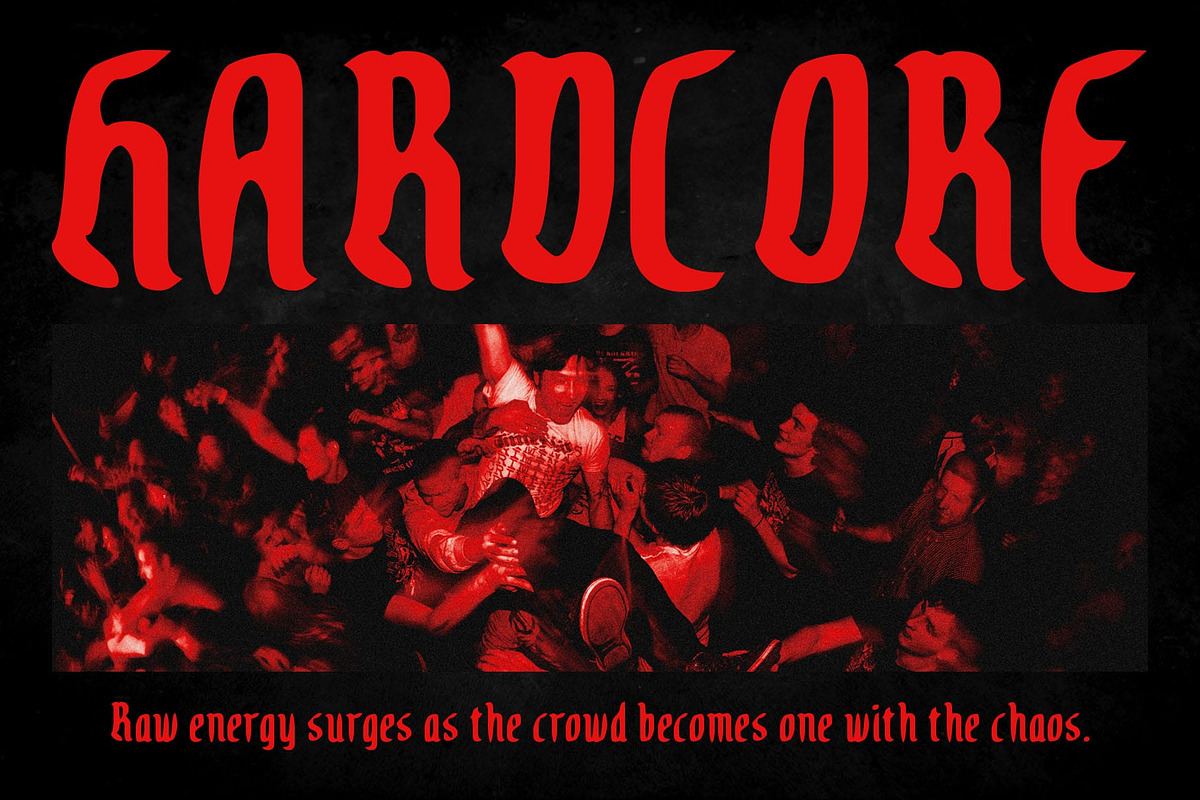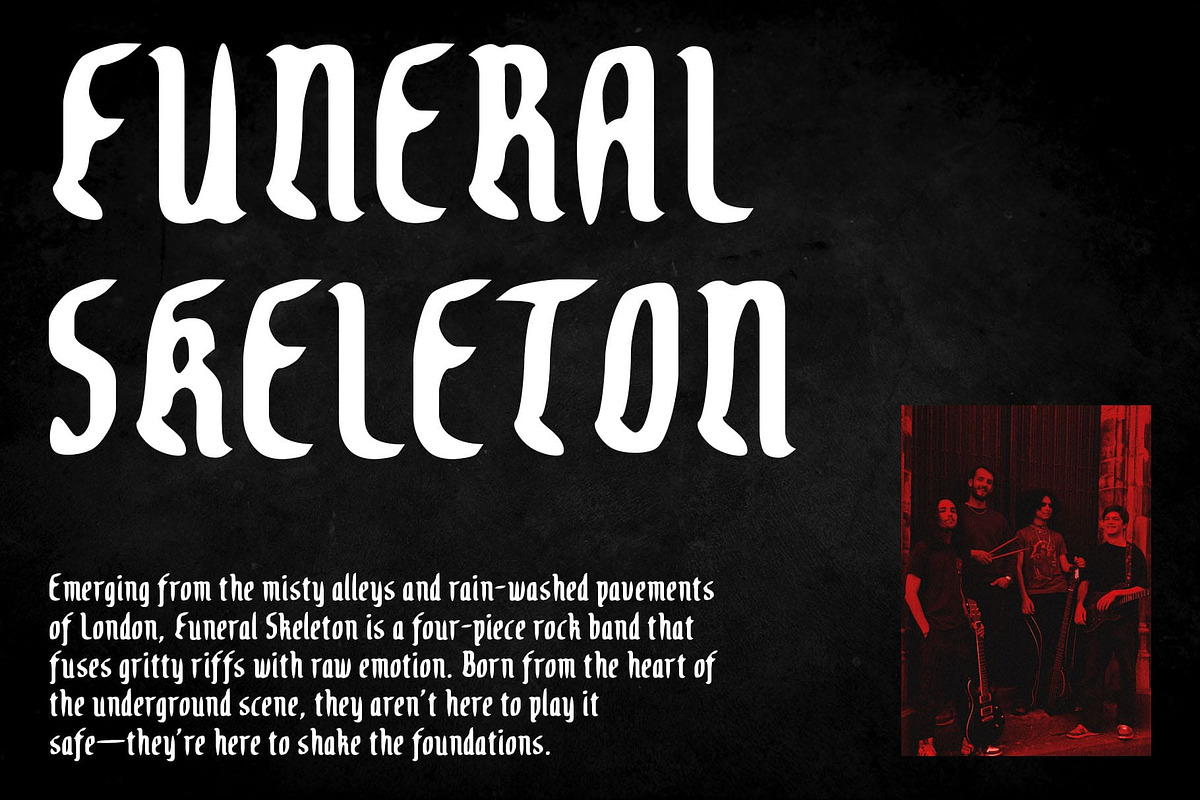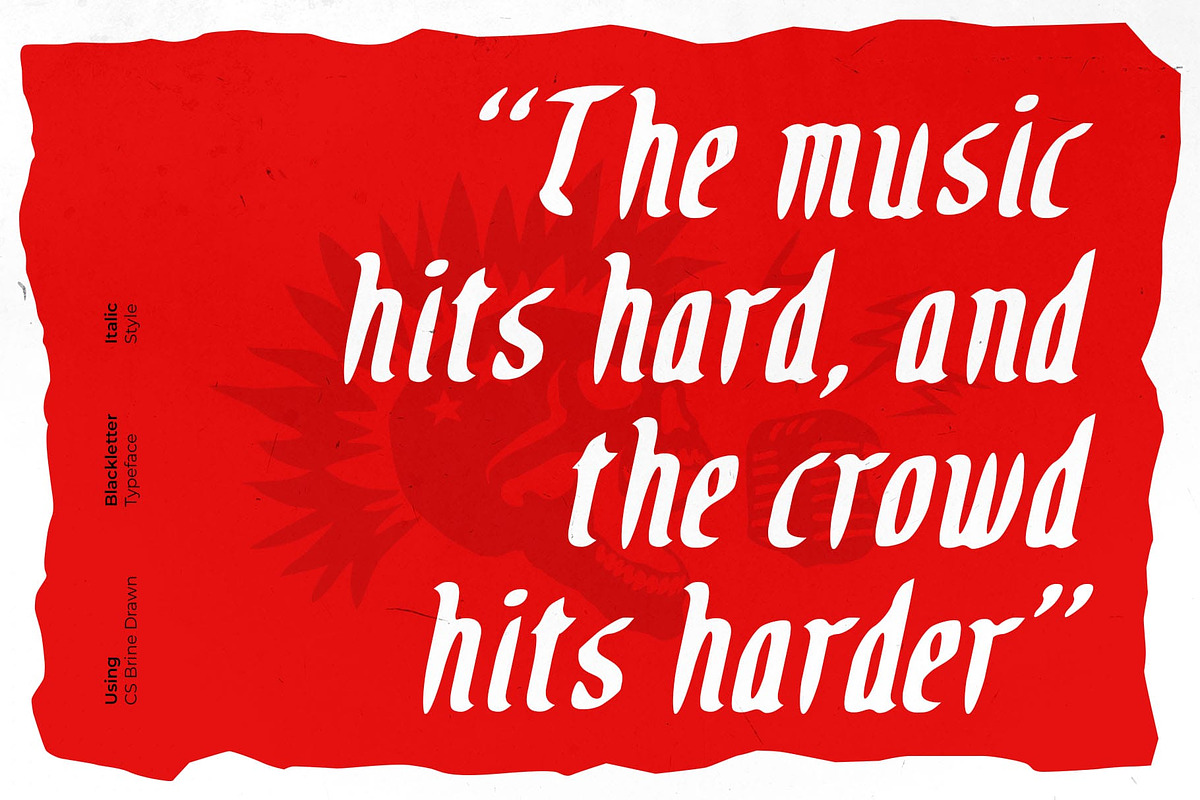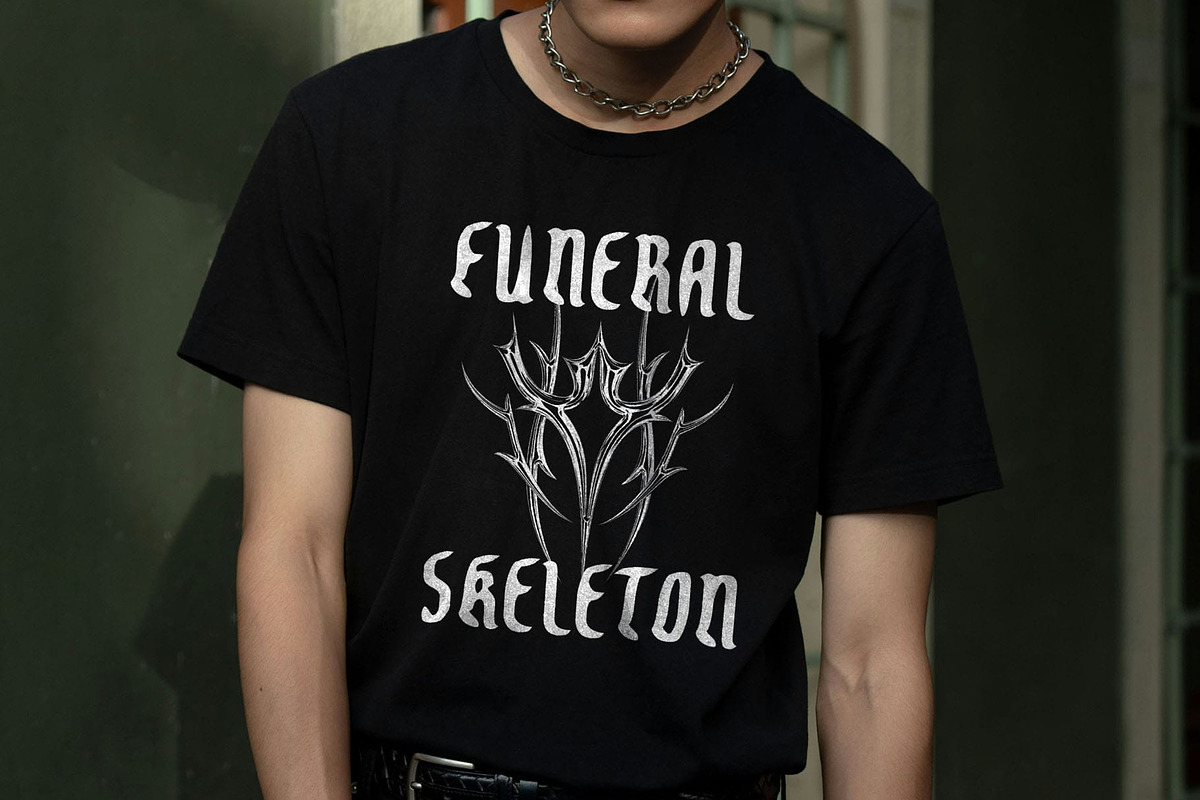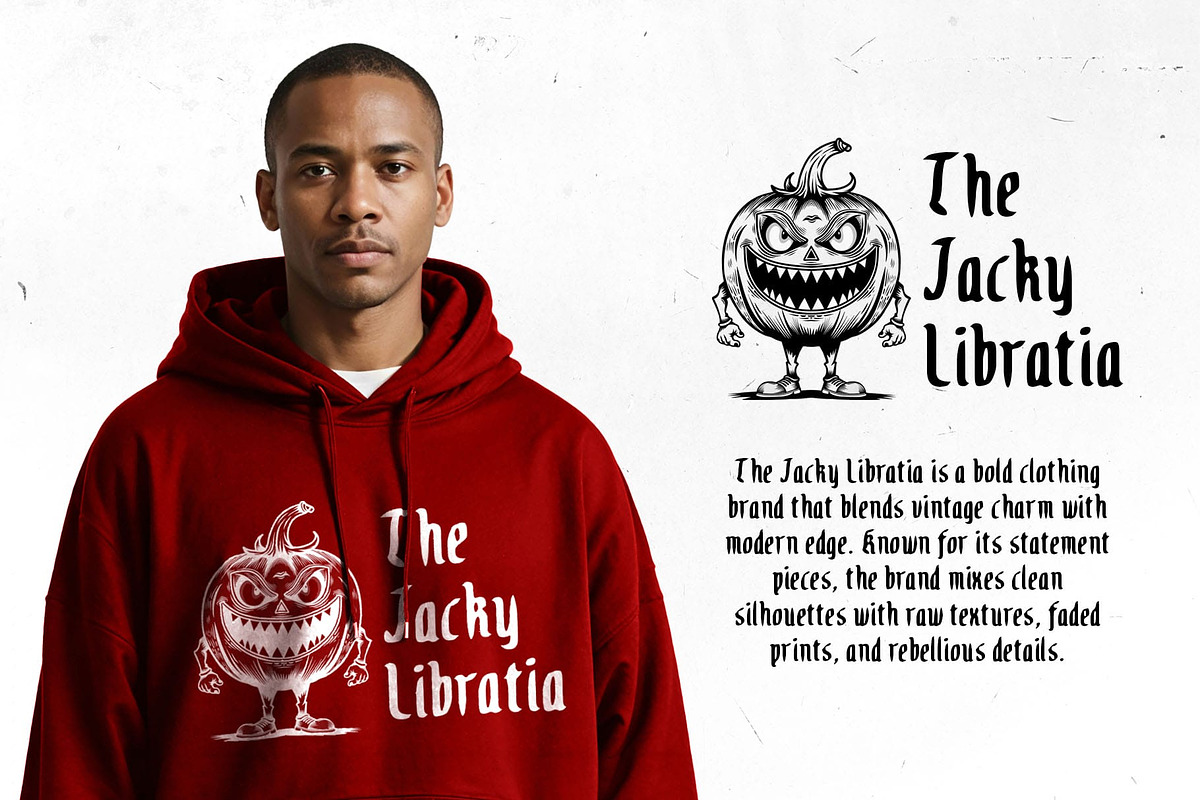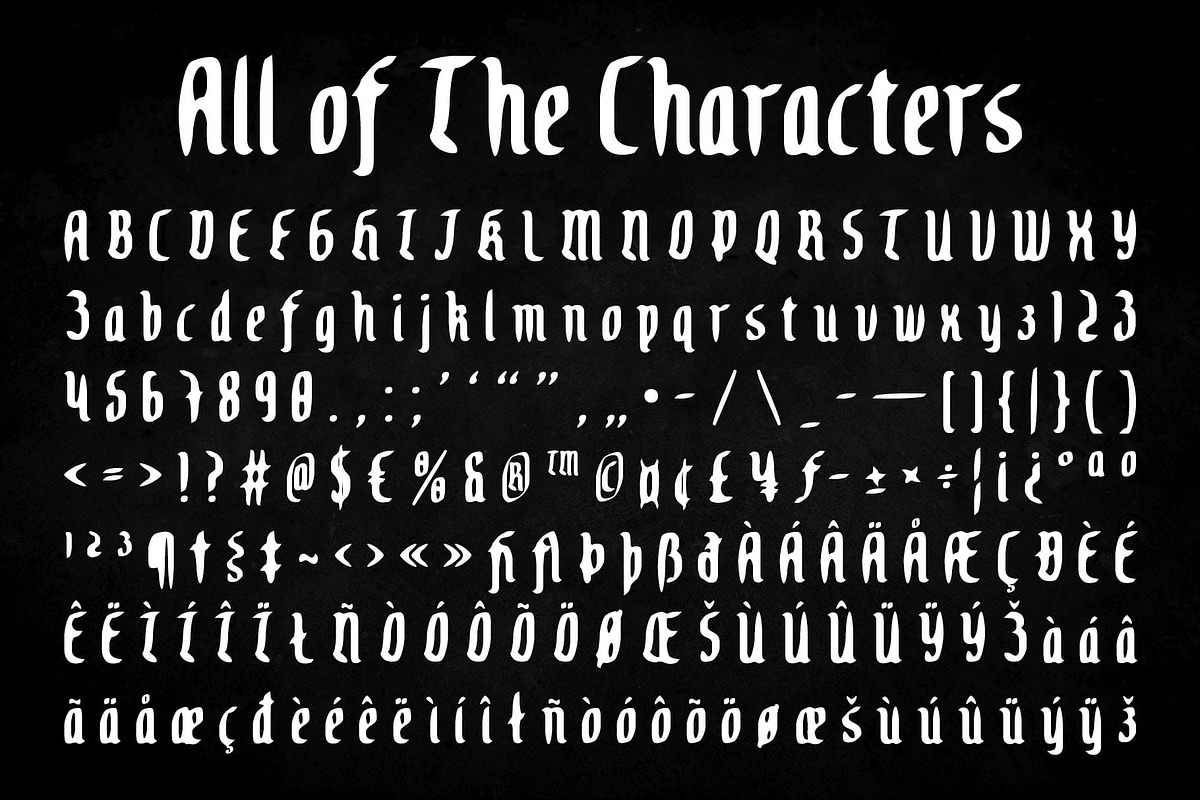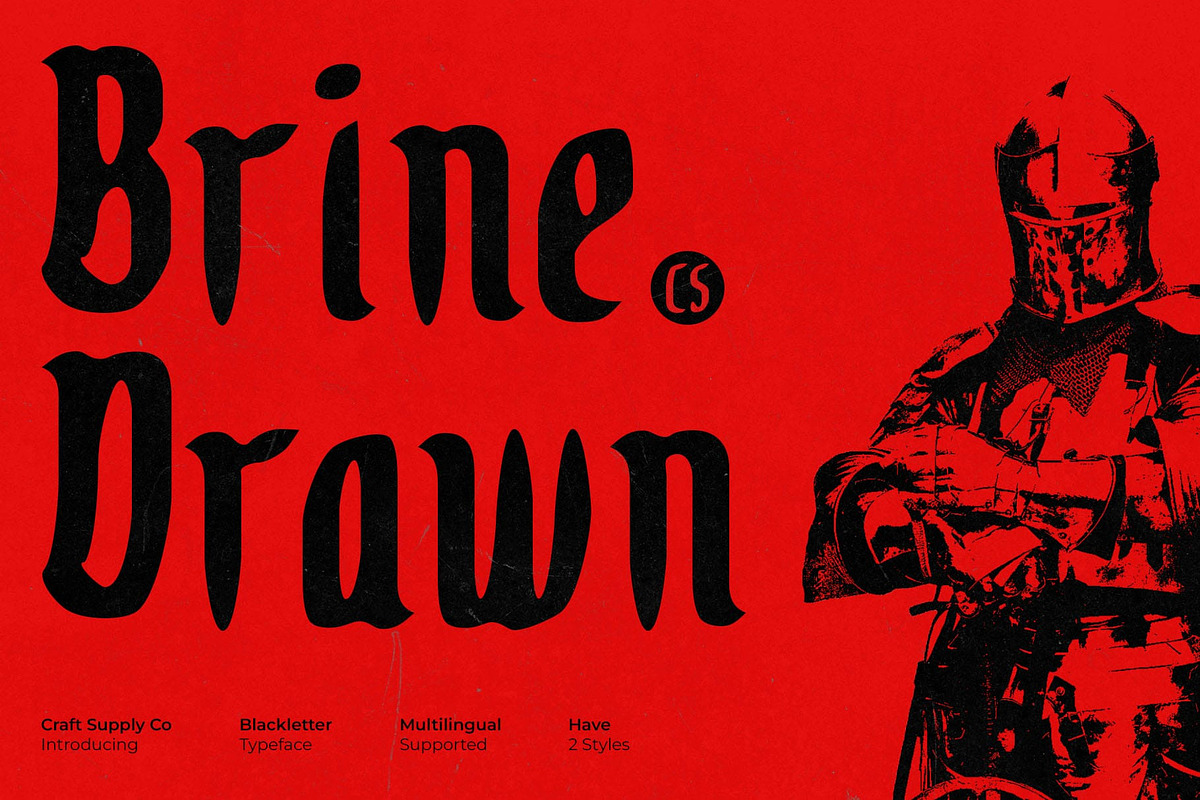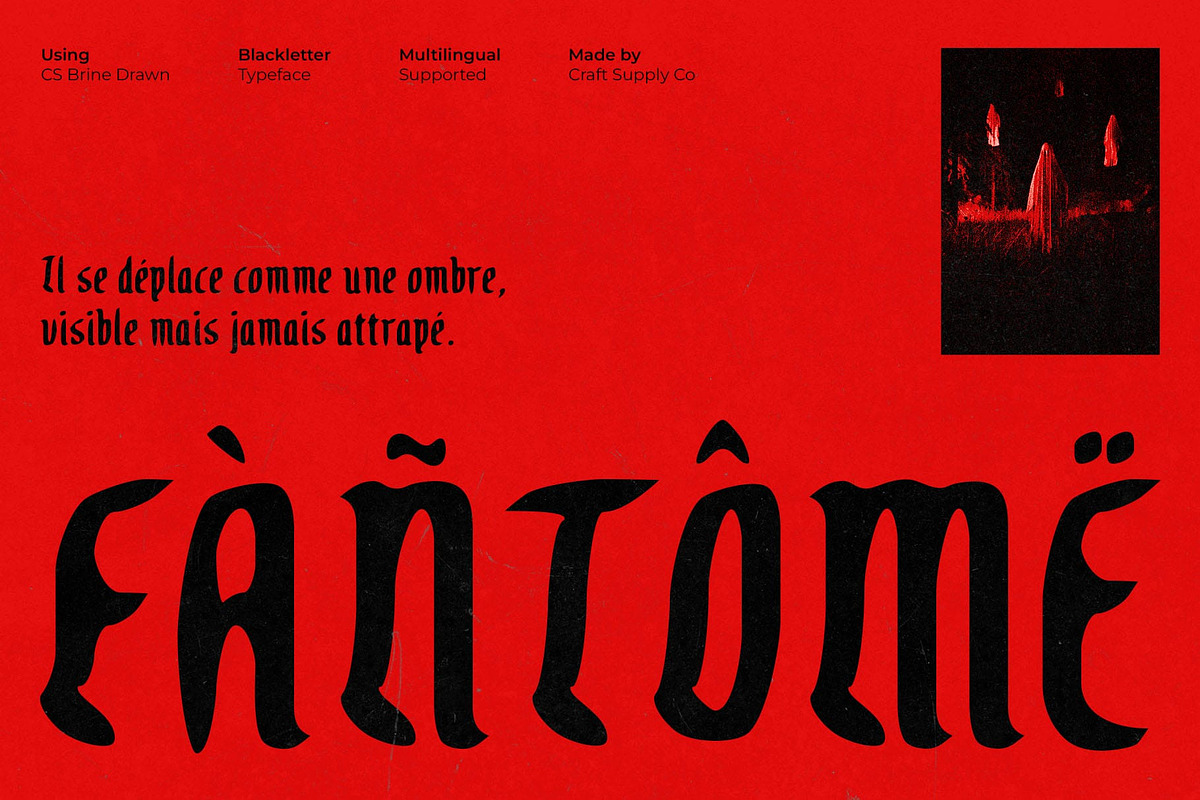
CS Brine Drawn
CS Brine Drawn – Where Gothic Boldness Meets Artistic Chaos
Modern Blackletter Display with Hand-Drawn Expression CS Brine Drawn is a modern blackletter display font infused with a raw, hand-drawn texture. It retains the iconic sharp, bold letterforms of traditional blackletter, but overlays them with expressive, imperfect lines—blending classic gothic heritage with a creative, handcrafted edge. The result is a font that commands attention through both its structure and its untamed aesthetic.
Rough Texture for a Wild, Artistic Feel The drawn effect gives this unique font a rough, sketch-like surface that evokes the energy of underground zines or rebellious street art. This texture softens the rigidity of its gothic forms while adding visual grit and emotional intensity, making each letter feel as though it was scrawled with fierce intent.
Bold Character for Edgy Design This font is more than just ornamental—it delivers a bold and edgy presence with every word. Ideal for album covers, music posters, or experimental editorial layouts, this drawn blackletter font fits naturally into projects that embrace grunge, rebellion, or avant-garde aesthetics. Its visual noise is its power, making it stand out in bold, impactful compositions.
A Perfect Fit for Alternative and Expressive Projects Whether you’re designing for punk rock visuals, underground art, or branding that challenges the norm, this bold font provides a visually arresting tool to bring your message to life.